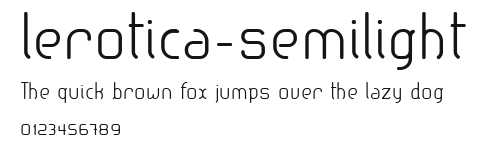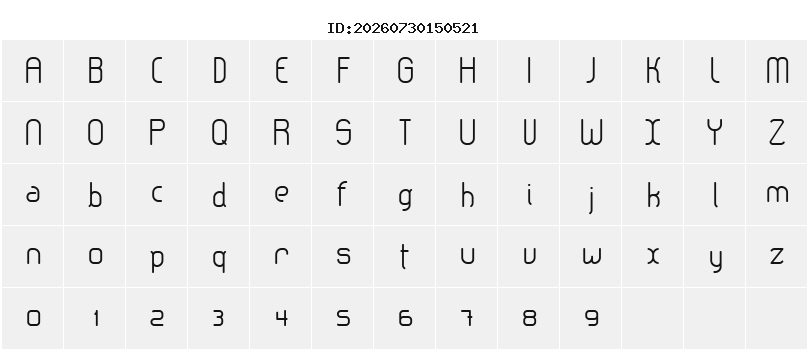
• Font Name: lerotica-semilight
• Designer: deFharo
About lerotica-semilight.ttf
lerotica-semilight.ttf is a modern, elegant sans-serif font designed for ultimate readability and visual harmony. Perfect for branding, headlines, web design, and print materials.